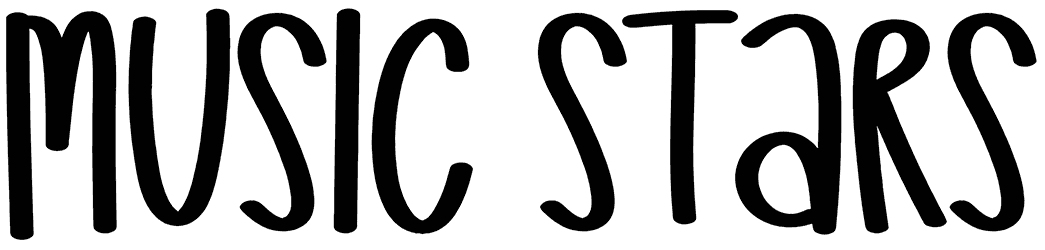
Music Stars Font
A distinct letterform will play a vital part in capturing attention to your project, and this handwritten font with its unique form can do it. The Music Stars font has playful and sweet letters, but some lowercase and uppercase letters are not available. Let’s set this kindergarten font on your party flyer and see how appealing it will be.